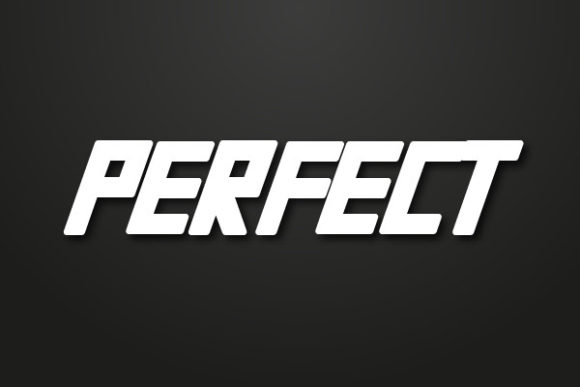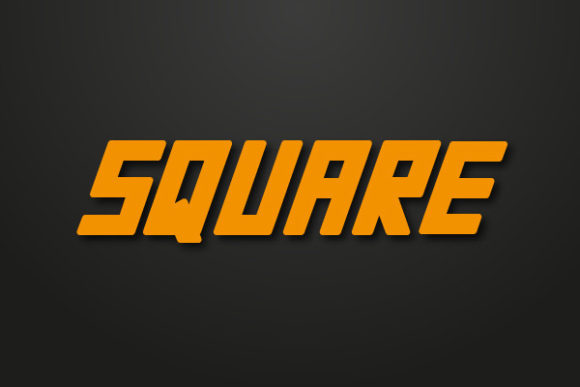
Introduction to Katok Kotak Font Font
Fonts play a crucial role in design, and the Katok Kotak Font font is a typeface that brings both character and versatility to any project. Whether you’re working on a branding project, a website, or a print design, the Katok Kotak Font font offers a unique style that can elevate your work.
Katok Kotak is a bold and thick lettered display font.
It works great on posters, covers, ads and so many more creative ideas that require an assertive touch .
Key Features of Katok Kotak Font Font
Why Choose Katok Kotak Font Font?
The Katok Kotak Font font is more than just a typeface – it’s a design tool that helps you communicate your message with style and clarity. Its unique character set and versatile design make it suitable for a wide range of applications, from elegant invitations to bold headlines.
With its carefully crafted letterforms and balanced proportions, the Katok Kotak Font font ensures readability and visual appeal across all mediums.
What makes Katok Kotak Font font special?
The Katok Kotak Font font stands out with its unique design, exceptional readability, and versatility across various design applications.